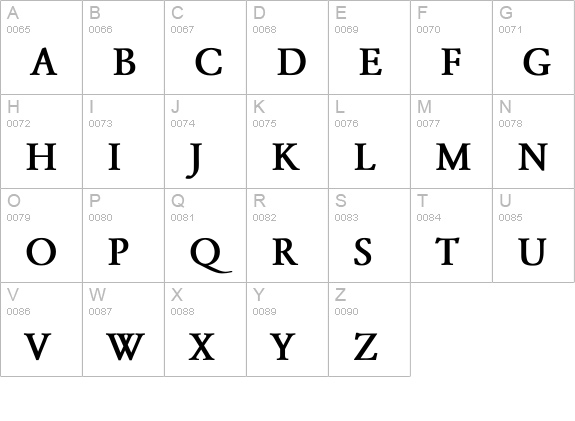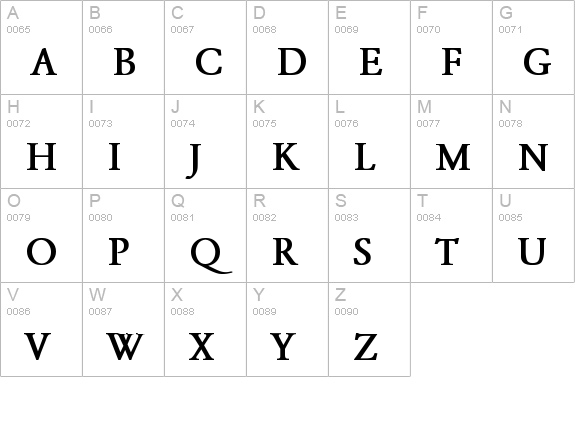
Garamond-Normal Bold Font Details
Garamond-Normal Bold is the standard, neutral variant in the Garamond typeface family \xE2\x80\x94 well suited to general body text, paragraphs, and standard typographic work.
Garamond-Normal Bold is a timeless and versatile font that exudes elegance and sophistication. Its bold weight commands attention while retaining a classic and refined aesthetic. This font is perfect for creating impactful headlines, titles, and statements that demand to be noticed. What sets Garamond-Normal Bold apart is its seamless blend of tradition and modernity, making it suitable for a wide range of design projects. Whether you're working on print materials, digital graphics, or branding elements, this font will add a touch of sophistication and professionalism to your work. Best of all, Garamond-Normal Bold is available for free download at FontsMarket.com, making it accessible to designers and creatives looking to elevate their projects without breaking the bank. Don't miss out on the opportunity to enhance your designs with this exquisite and freely available font.